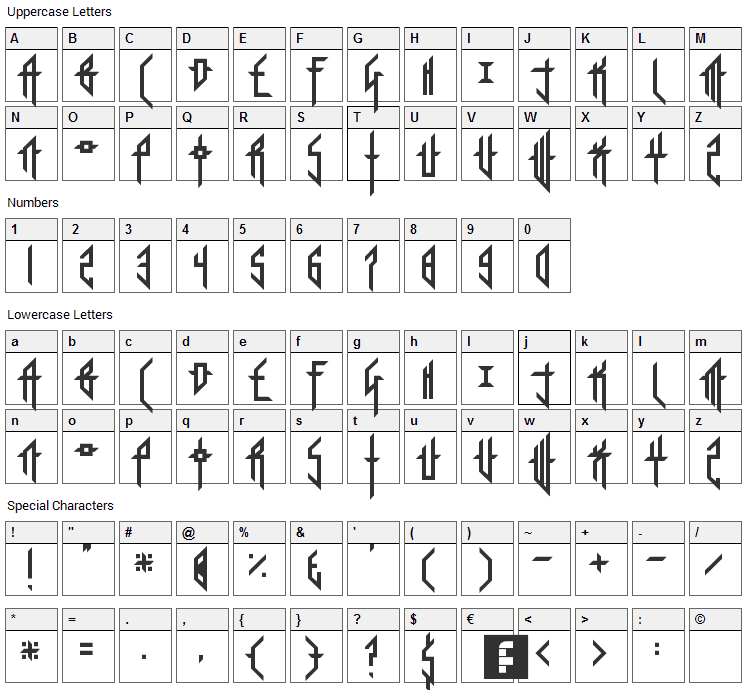
Sorrier Statements have never been said. A very abstract font, inspired by a multitude of musical genres like metal and dubstep. Use dashes to join letters (most join with a horizontal line).